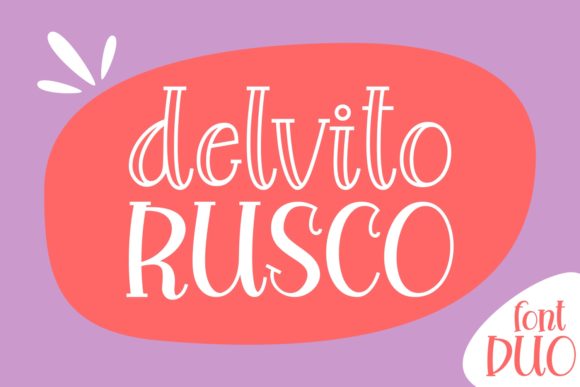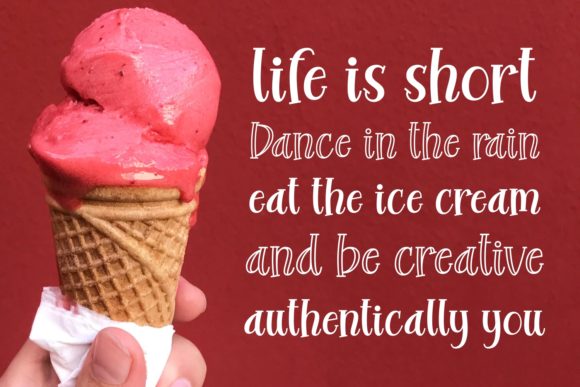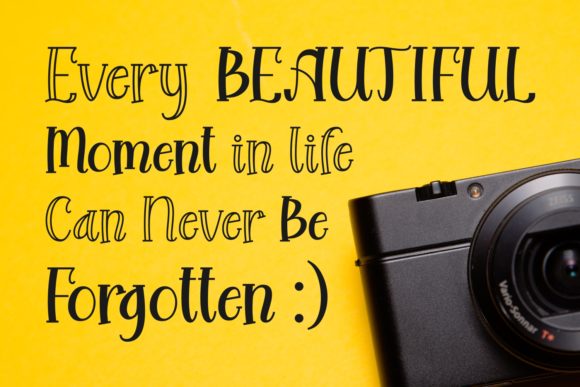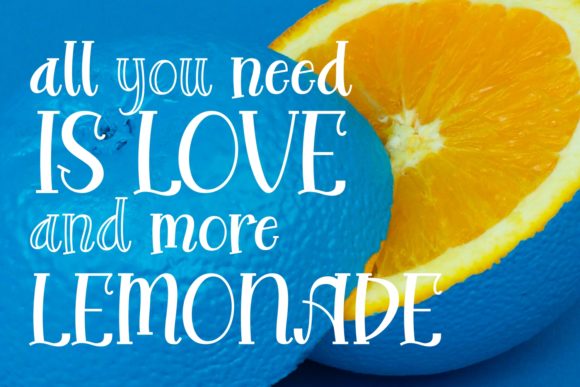
HomeScript FontsDelvito Rusco Font Script Fonts Delvito Rusco Font FacebookXPinterestWhatsApp Delvito Rusco Font Poster 2 Delvito Rusco Font Poster 3 Delvito Rusco Font Poster 4 About Delvito Rusco Font Delvito Rusco comes in both a regular and an outlined version, making it a must-have for any crafter! DOWNLOAD ON CREATIVE FABRICAThis font is sold and delivered by Creative Fabrica. Font Canyon may earn a commission if you buy through this link. People also explored Sunflowers Font Lovestorys Font Hello Smile Font Super Baby Font Order Online Font Boho Font Sidiqie Family Font Migratory Font Melista Monogram Font 328 0 TagsDelvito Rusco Font Previous articleJust Swirls FontNext articleMeredith Font LEAVE A REPLY Cancel reply Comment: Please enter your comment! Name:* Please enter your name here Email:* You have entered an incorrect email address! Please enter your email address here Website: Save my name, email, and website in this browser for the next time I comment. Personal Use Free Joystix Monospace Personal Use Free Read more about this font Cranberry Gin Personal Use Free Read more about this font Mounets Personal Use Free Read more about this font The Kingdom Personal Use Free Read more about this font BLOG Best Fonts for T-Shirt Design – Top 2025 Picks In 2025, t-shirt design has become more than just fashion—it's a form of self-expression. Whether you're... Transform Your Website: Elevate Your Typography with 7 Best Web Font Generators 5 Fonts That Will Dominate Design Trends in 2026 Top 7 Google Fonts Alternatives for Faster and Privacy-Friendly Web Design (2025)